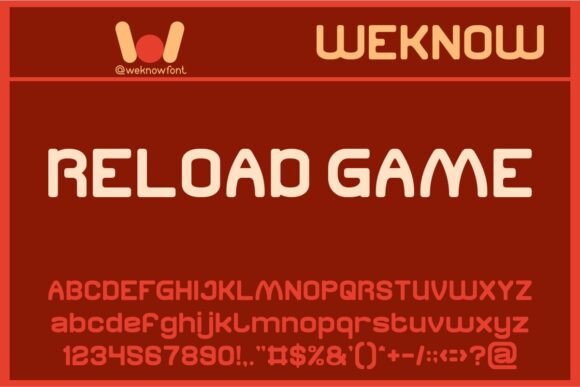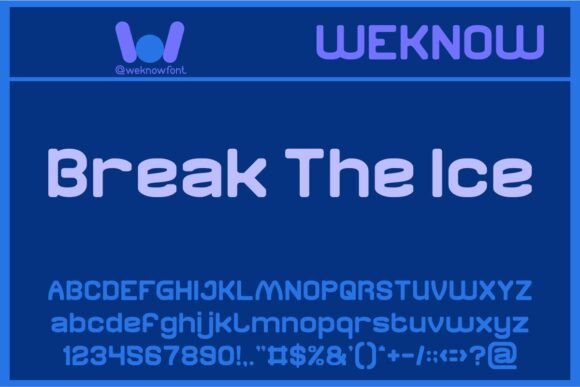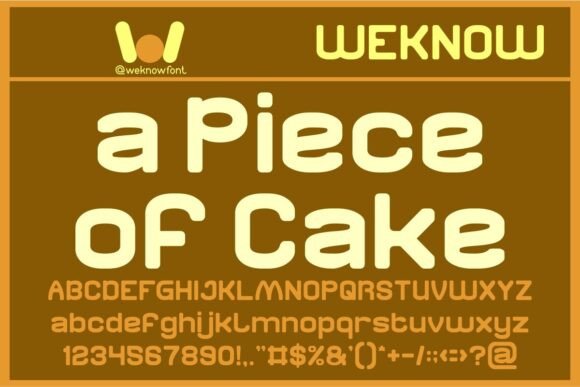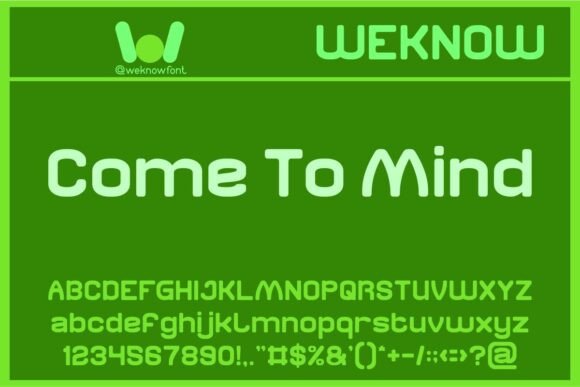
Reload Game Font
About the Reload Game Font
Introducing the Reload Game Font, a beautifully crafted typeface designed to elevate your creative projects. Reload Game is a basic sans-serif retro tech futuristic arcade playful modern display font suitable for a logo, logotype, headline, corporate identity, brand identity, apparel industry, poster, music, movie, game, magazine, book, comic, cartoon, YouTube, Instagram, website, or any of your creative design projects.
Reload Game excels as a display font for headlines, posters, and branding applications where a bold, playful energy is desired. Its retro-futuristic style is ideal for projects related to gaming, technology, or entertainment. Avoid using it for body text or lengthy paragraphs; its strong visual character isn’t suited for extended reading.
The font’s personality is undeniably bold and energetic, yet maintains a friendly approachability. It works well for brands aiming for a youthful, modern, and slightly nostalgic feel.
Pairing Reload Game with a clean sans-serif like Open Sans for body copy, or a classic serif like Merriweather for supporting text, will create a balanced and effective design. For a more playful approach, consider pairing it with a rounded geometric sans-serif. Avoid pairing it with overly decorative or script fonts, which could clash with its distinct style.
Reload Game Font Example